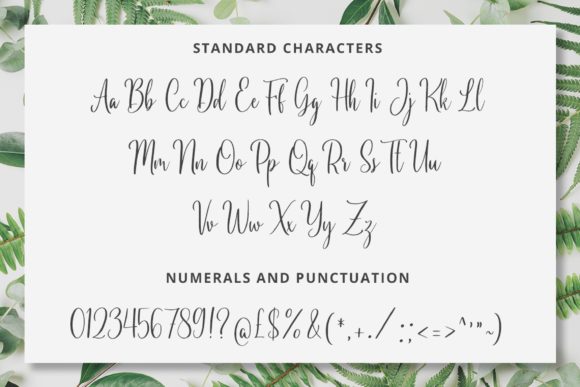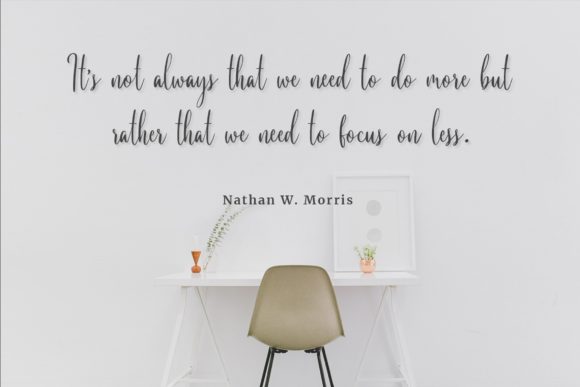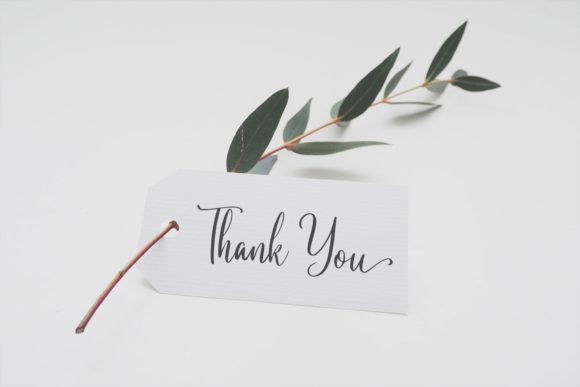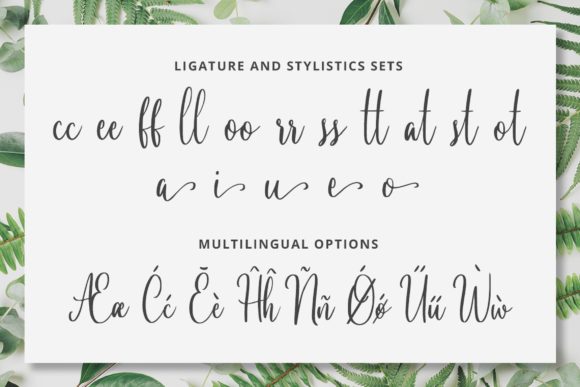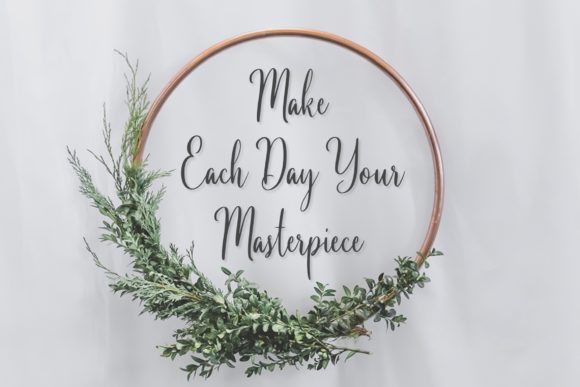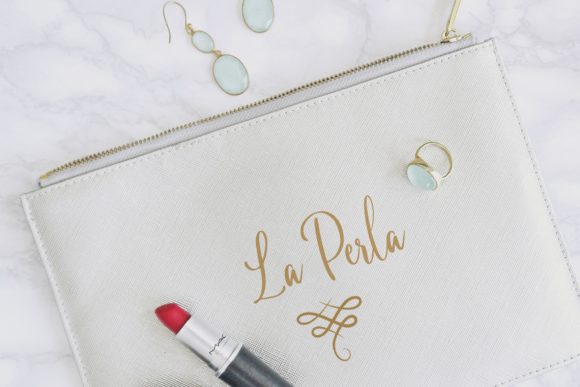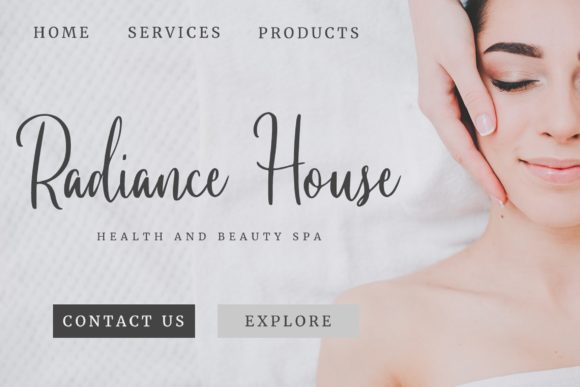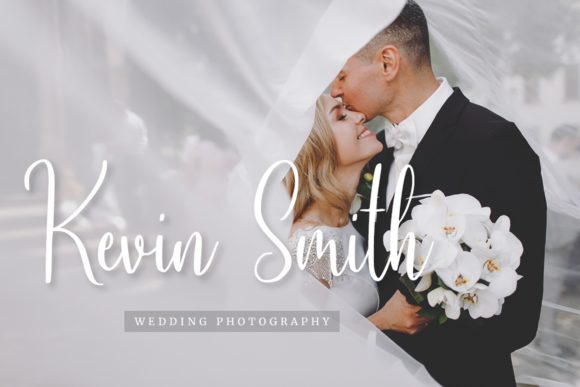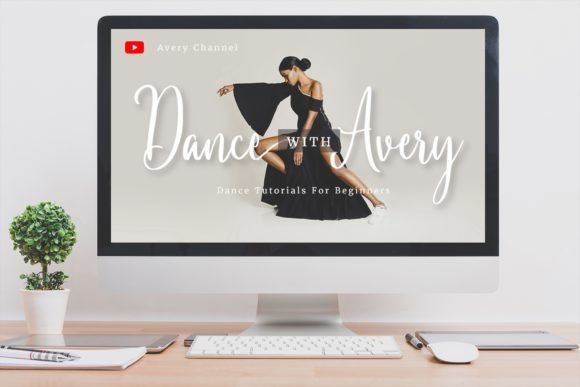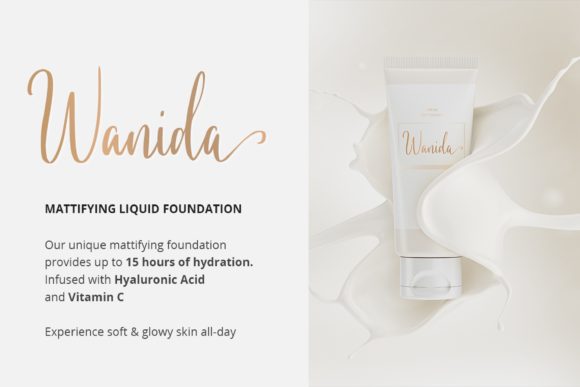
Butterscotch Font
About Butterscotch Font
Butterscotch is a modern calligraphy font. It will add a fabulous and elegant touch to your projects. It’s perfect for social media branding projects, fashion designs, printed quotes, packaging, or even as a stylish text overlay to any background image.